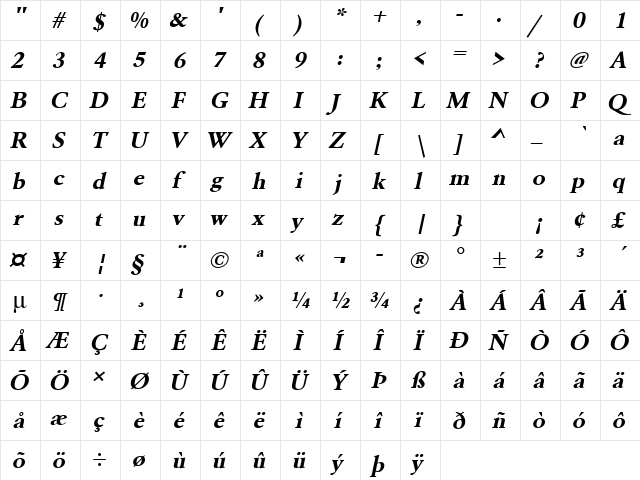
URWGaramondTWid Bold Oblique
Design Context for URWGaramondTWid Typeface
URWGaramondTWid offers clean, dependable letterforms without strong stylistic allegiance, making it a practical choice for designers who need flexibility. The slanted form adds forward momentum and visual energy. The heavy weight commands attention and anchors typographic hierarchies.
Pro Tip: Use URWGaramondTWid for emphasis, pull quotes, and subheadings where its slanted energy can add rhythm to the layout.